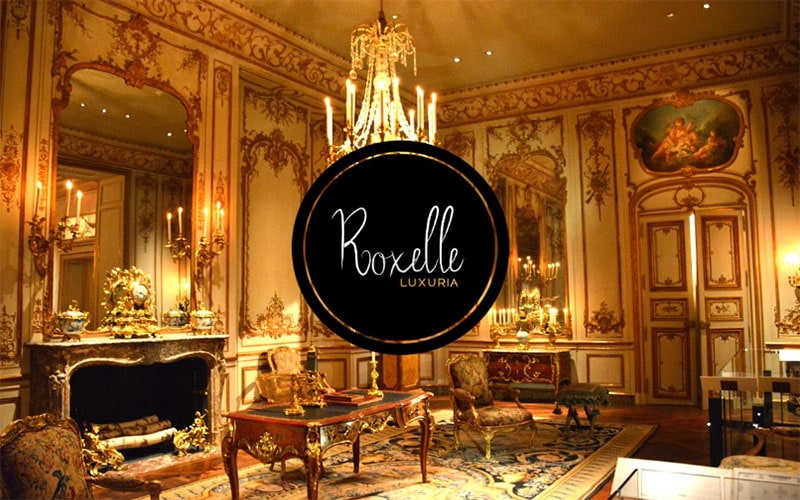
Clarette Dior Font is a sophisticated and stylish typeface that exudes elegance and charm. With its delicate curves and refined details, this font is perfect for designs that require a touch of class and luxury.
It was designed by a talented typographer Fontastica whose expertise in creating stylish and luxurious typefaces is reflected in the meticulous design of Clarette Dior.
This font includes a comprehensive character set, Uppercase and lowercase letters, Numerals, Punctuation marks, and Special characters.
This extensive character set ensures versatility and adaptability in various text-based applications, maintaining a consistent and cohesive look across different media.
Clarette Dior Font
| Font Name: | Clarette Dior Font |
| Style: | Script, Handwritten, Typeface |
| Font Designer: | Fontastica |
It typically comes in a single, elegant style. The design features graceful, flowing letterforms that add a sense of sophistication and beauty to any text.